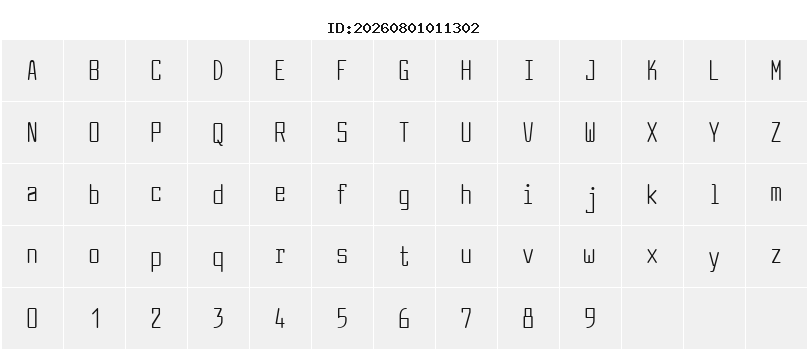
Larabiefont Compressed Preview
• Font Name: Larabiefont Compressed
• Full Font Name: Larabiefont Compressed
• Designer: Ray Larabie
• Manufacturer: Ray Larabie
About Larabiefont Compressed.ttf
Larabiefont Compressed.ttf is a modern, elegant sans-serif font designed for ultimate readability and visual harmony. Perfect for branding, headlines, web design, and print materials.